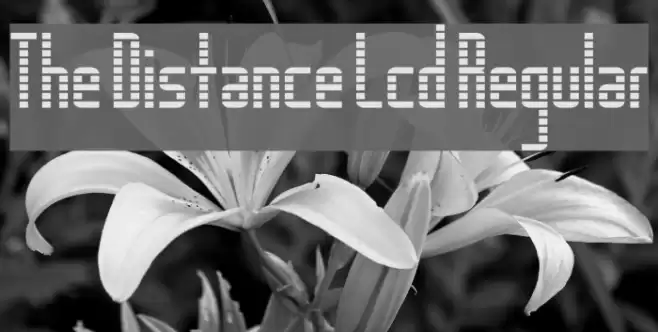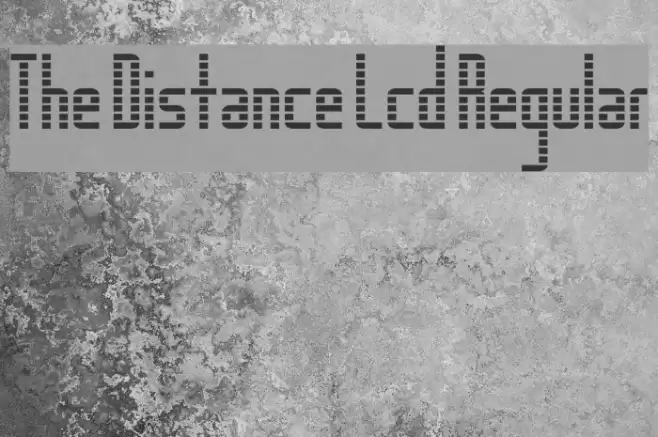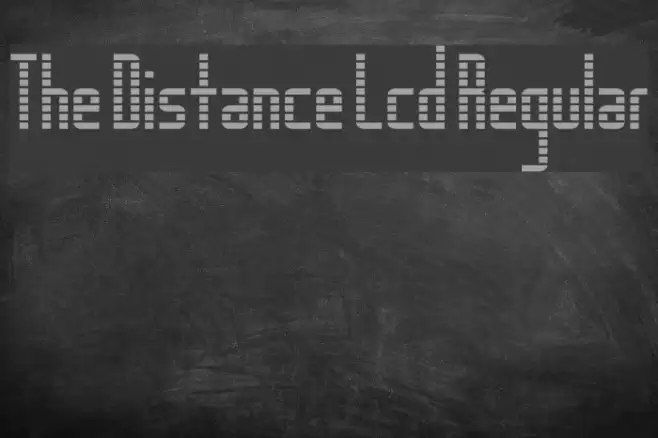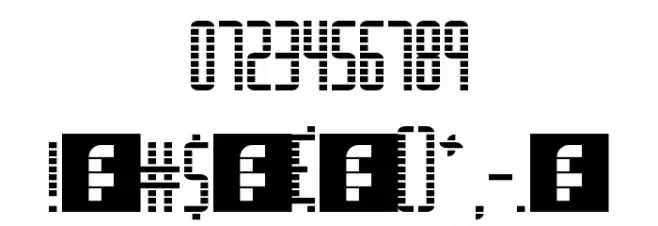
The Distance Lcd Regular Font
The Distance Lcd Regular Description
This font features a digital, pixelated design reminiscent of classic LCD displays. Each character is composed of a grid-like pattern of rectangular segments, creating a distinct, tech-inspired aesthetic. The uppercase and lowercase letters maintain a consistent structure, while the numerals and special characters follow the same segmented style. The overall appearance is bold and geometric, making it highly legible and suitable for digital-themed projects.
A pixelated, LCD-inspired font with a bold, geometric style from Uncategorized fonts.